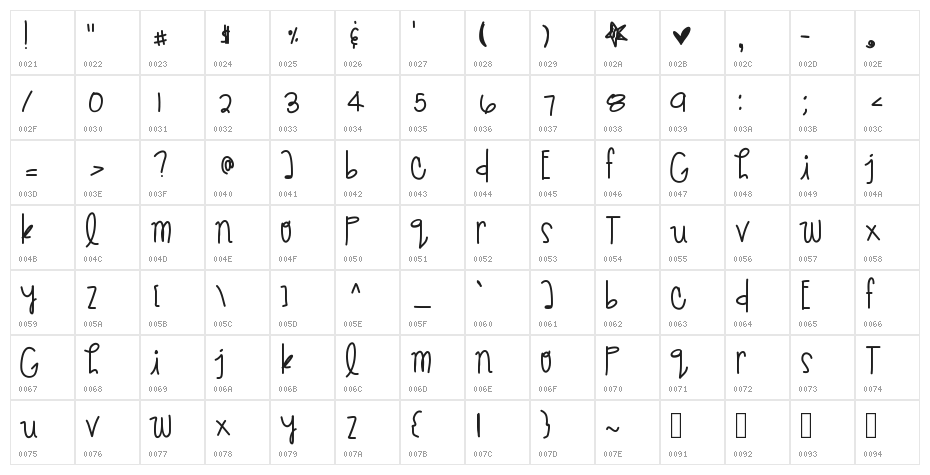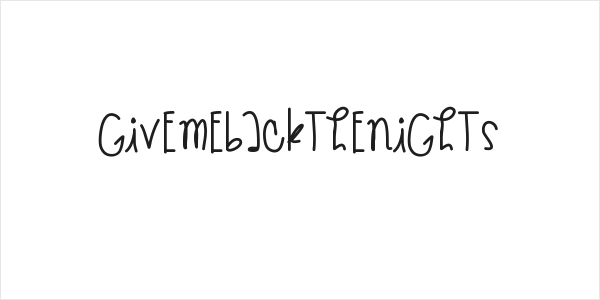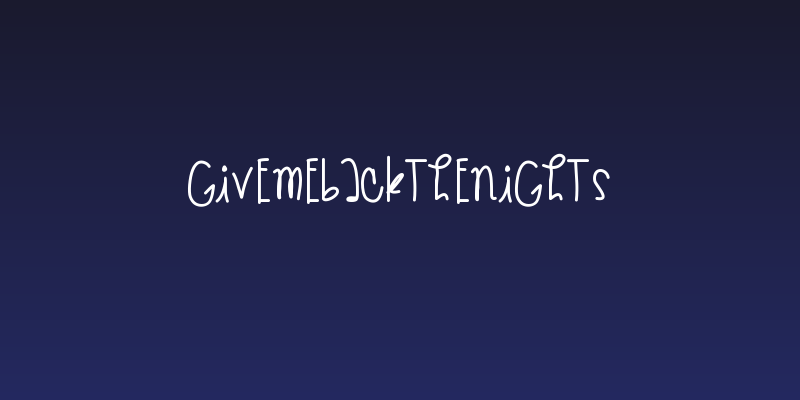
GiveMeBackTheNights Font
GiveMeBackTheNights Description
This font features a playful and whimsical handwritten style, characterized by its irregular and flowing letterforms. The strokes are smooth and rounded, giving it a friendly and approachable appearance. The uppercase and lowercase letters maintain a consistent style, with some letters having unique loops and curves that add to its charm. The numerals and special characters are equally expressive, making the font versatile for various creative applications. Its informal and casual nature makes it suitable for projects that require a personal touch.
| Overall Style | Casual |
| Use Case | Headlines, Invitations, Branding |
| Proposed Projects | Ideal for greeting cards, children's books, playful branding, and social media graphics. |